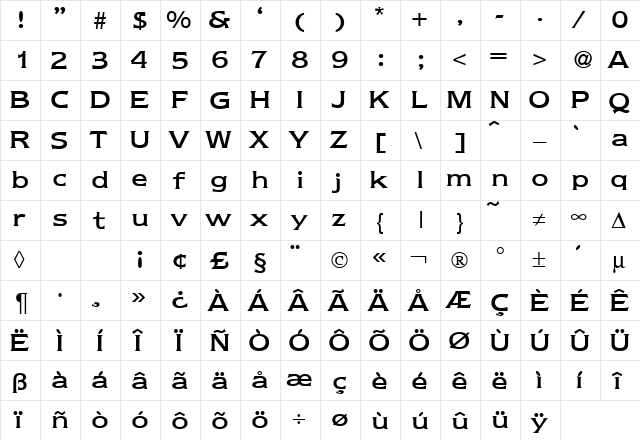
NebraskaMedium Regular
Design Context for NebraskaMedium Typeface
NebraskaMedium offers clean, dependable letterforms without strong stylistic allegiance, making it a practical choice for designers who need flexibility.